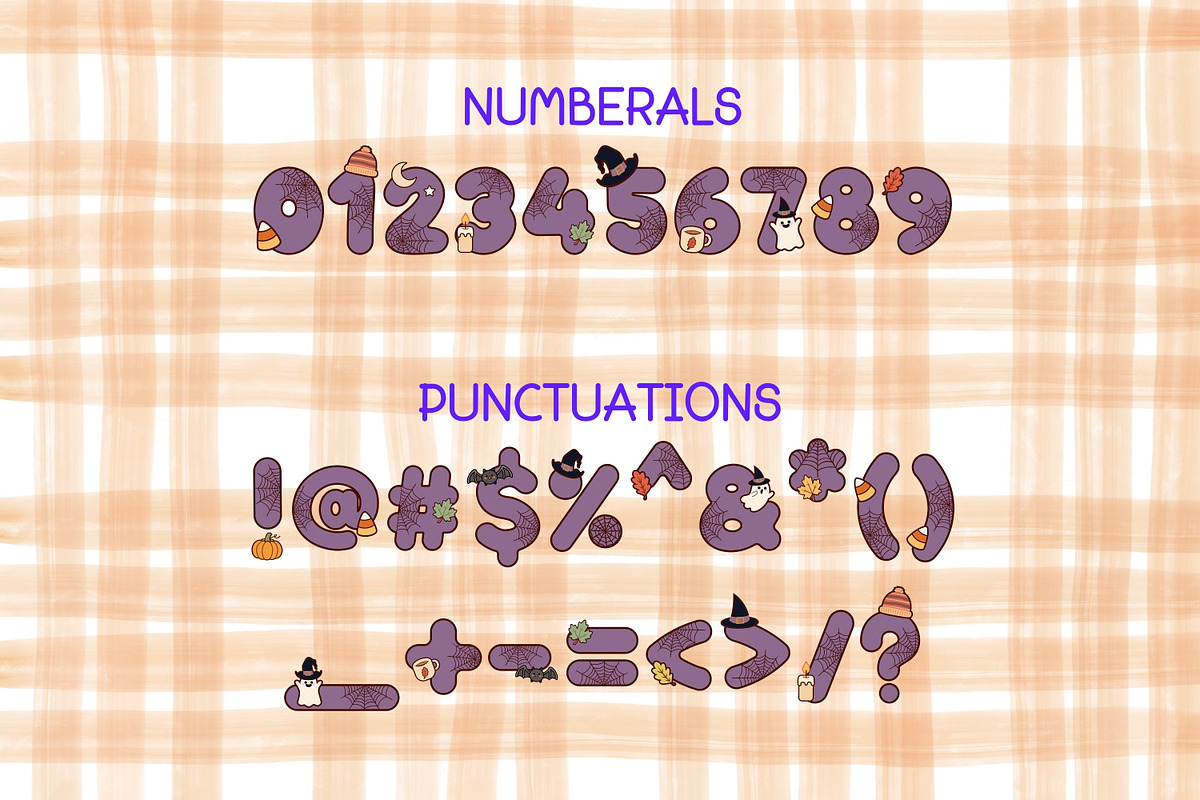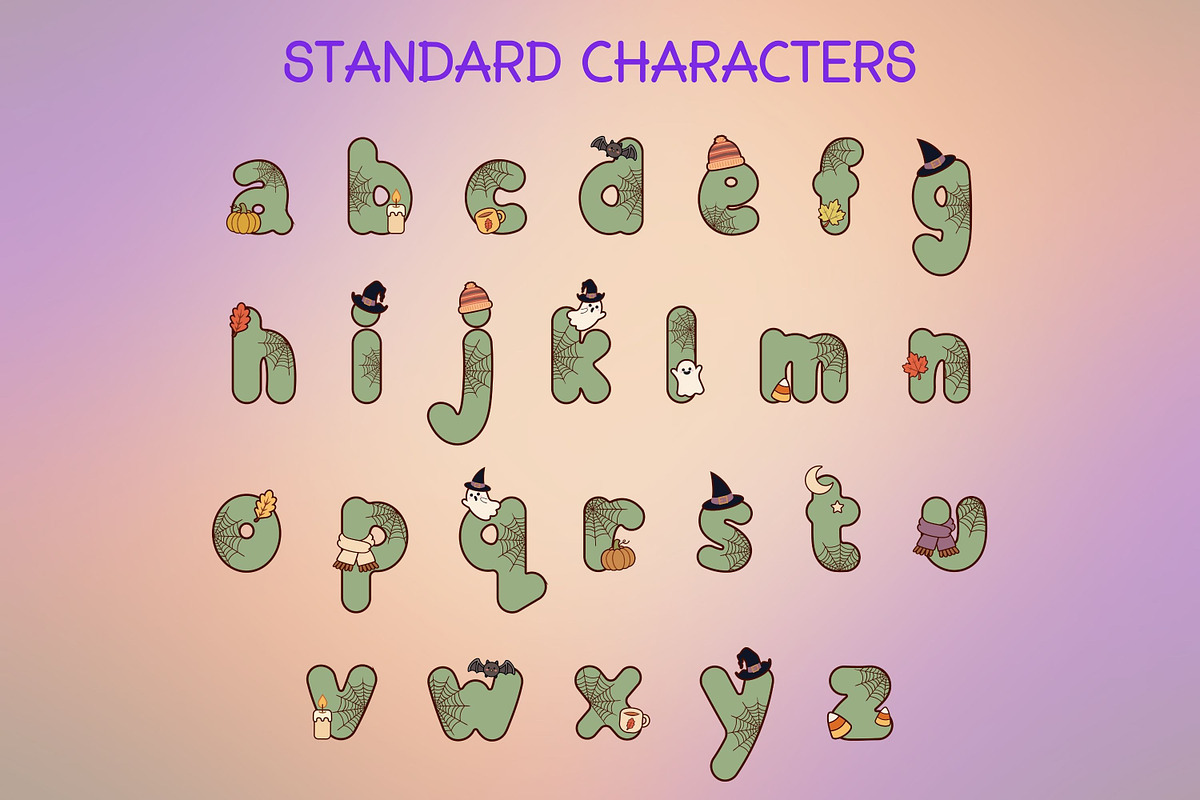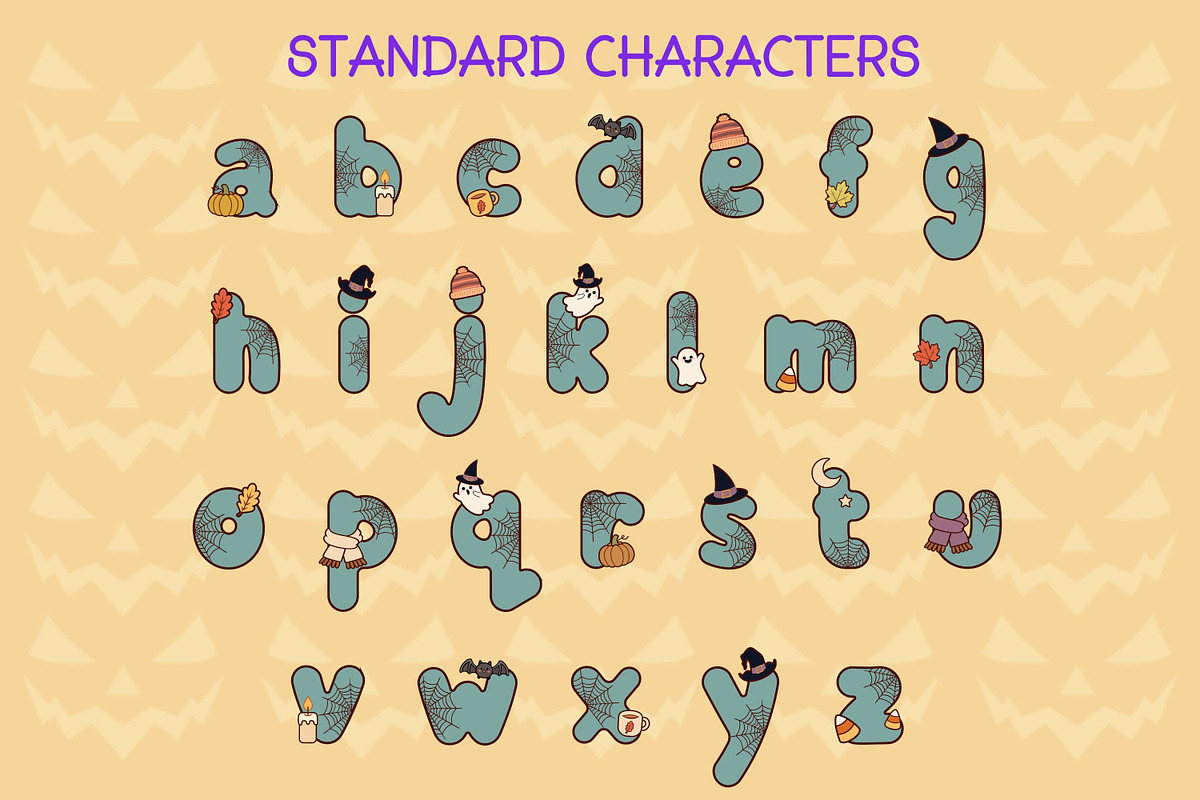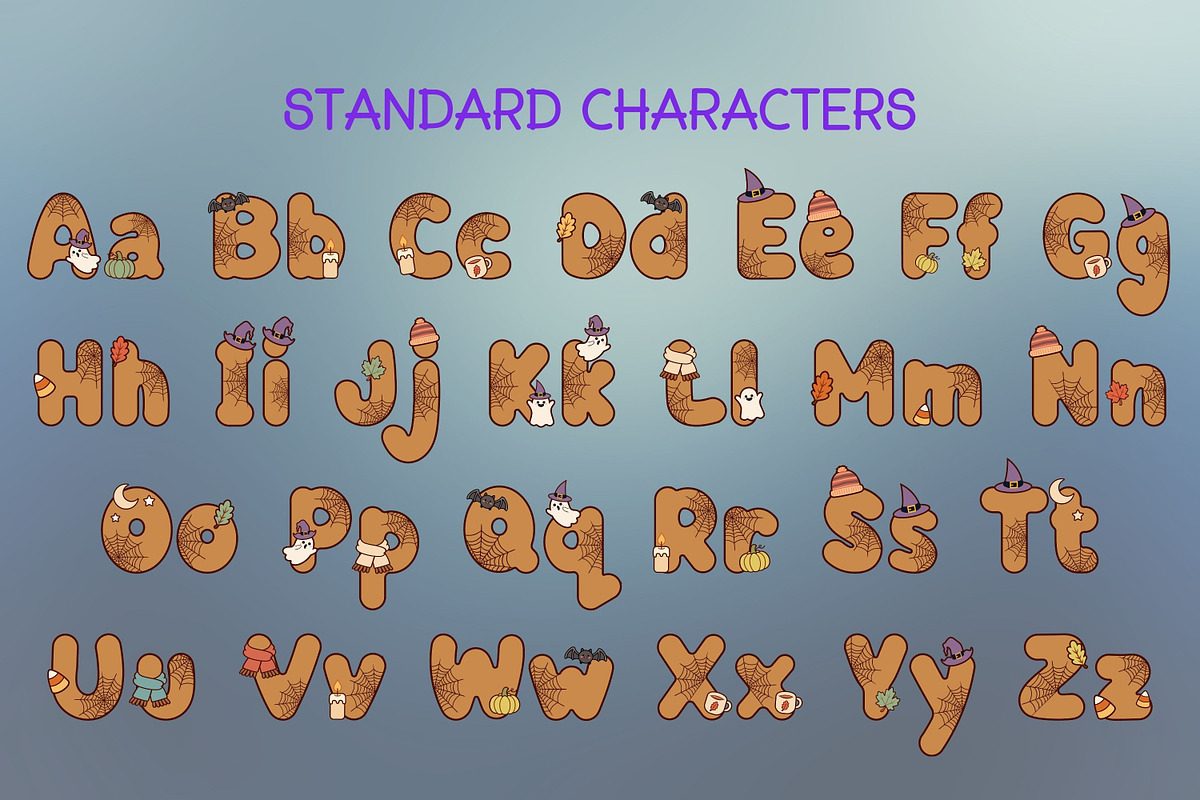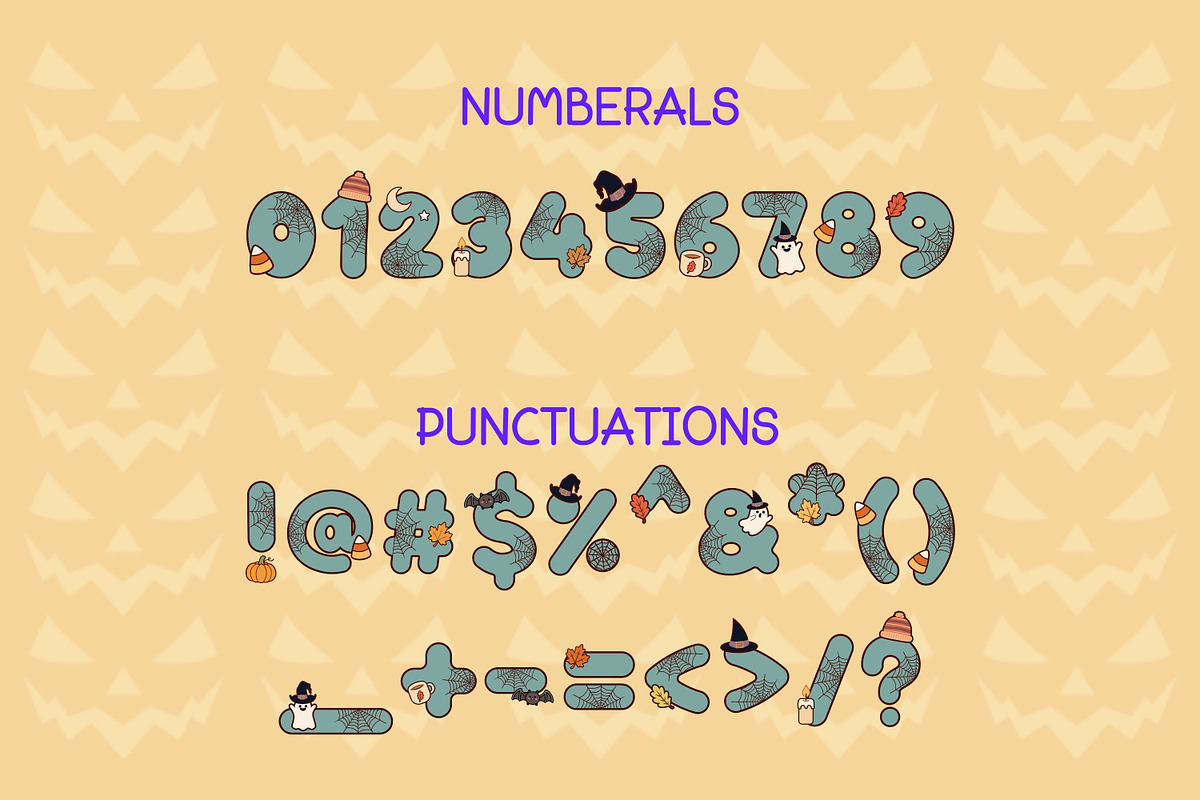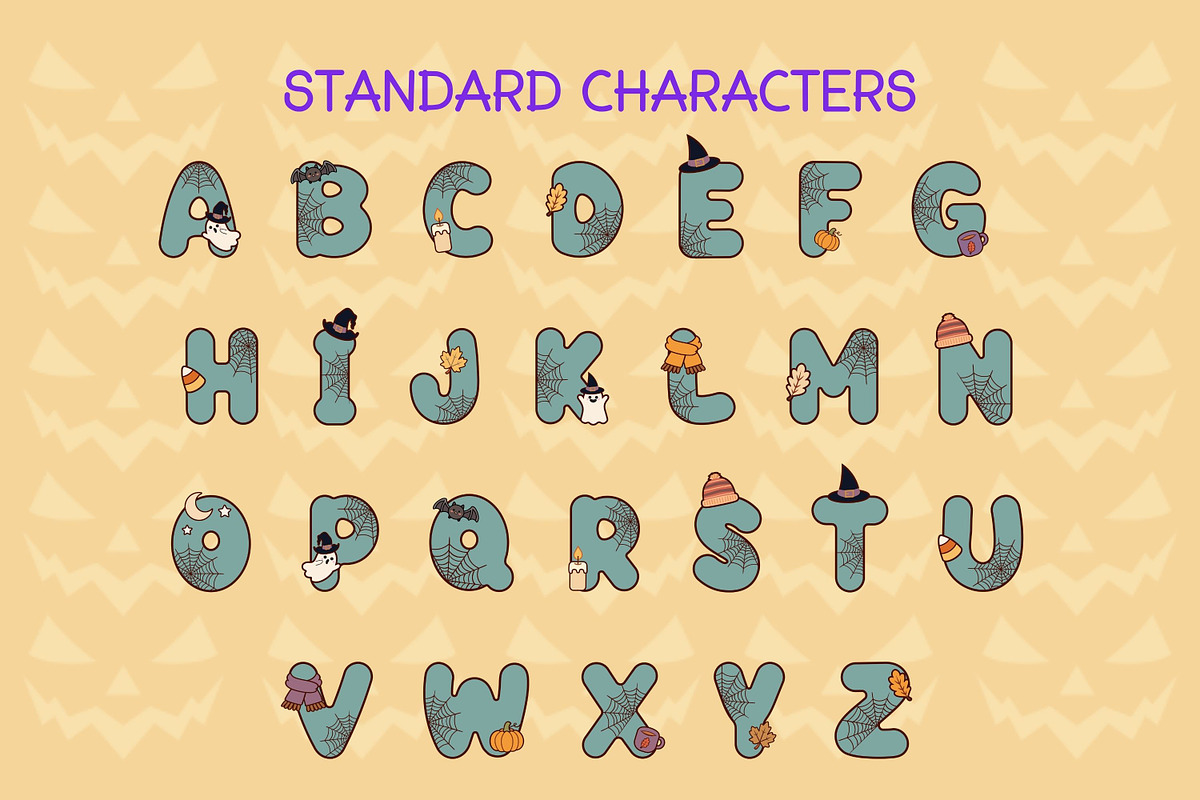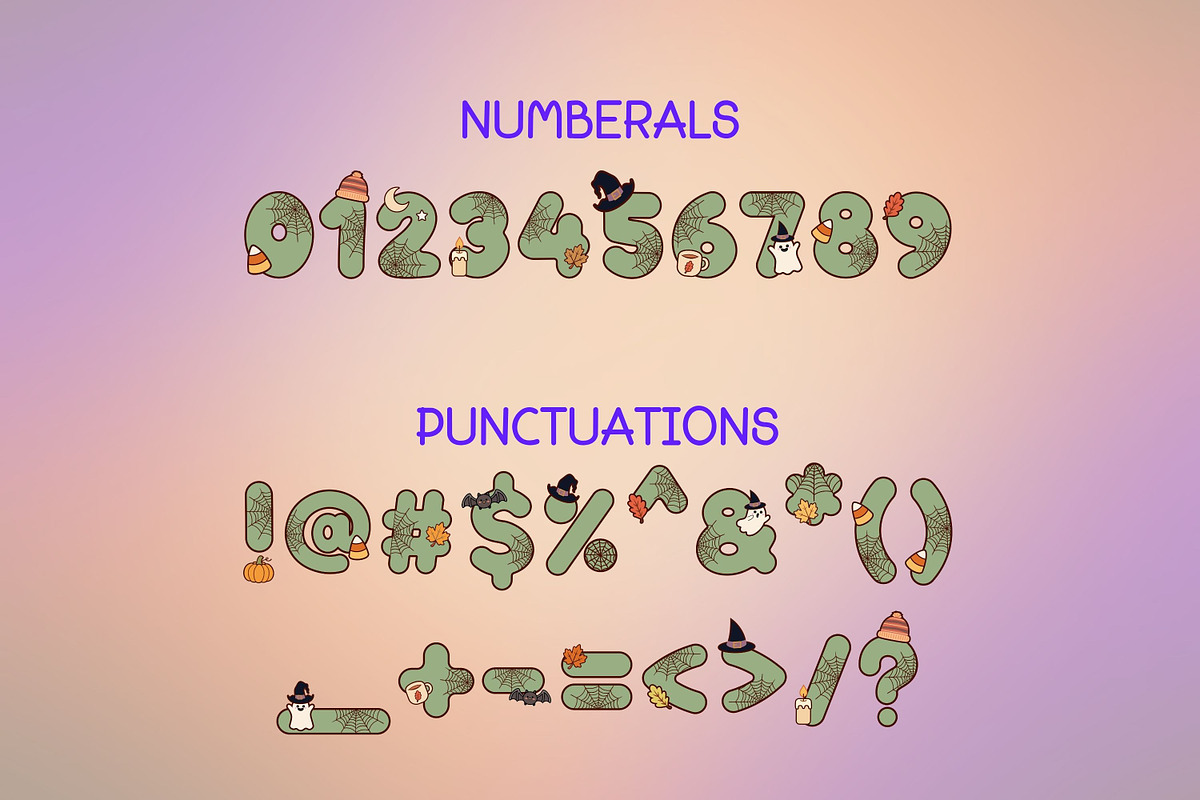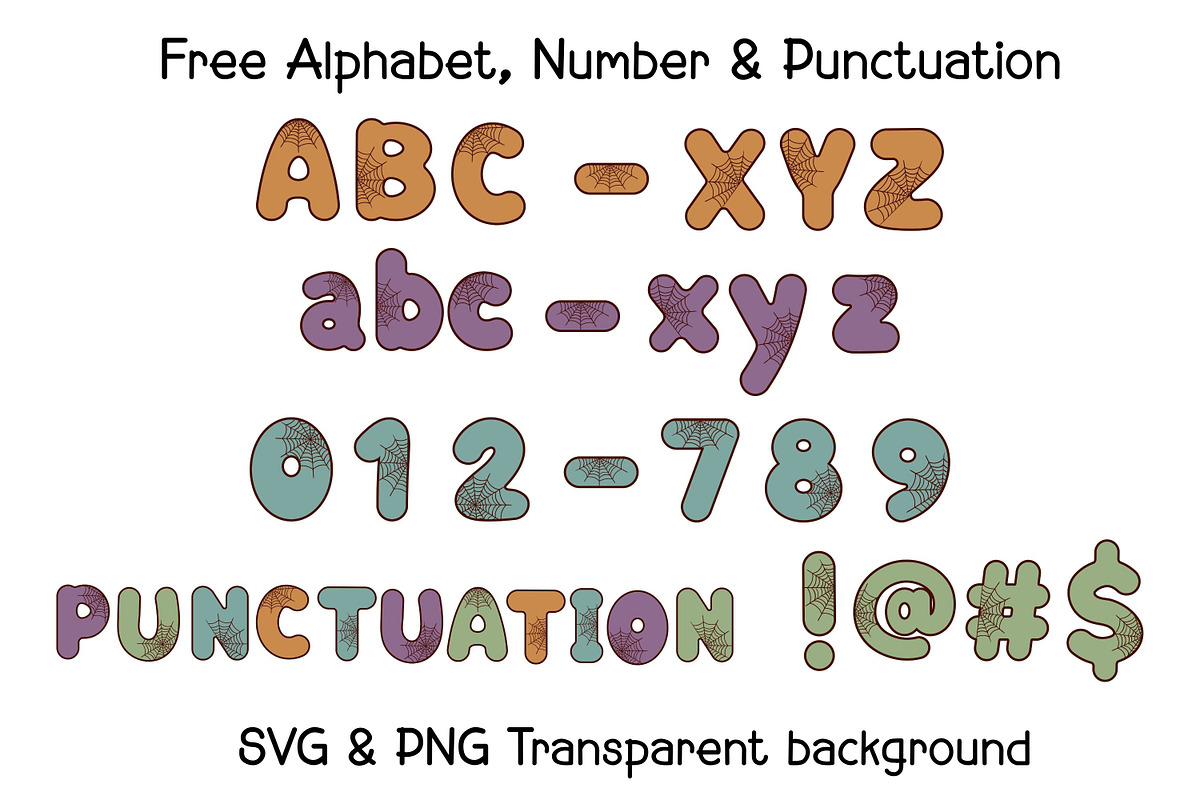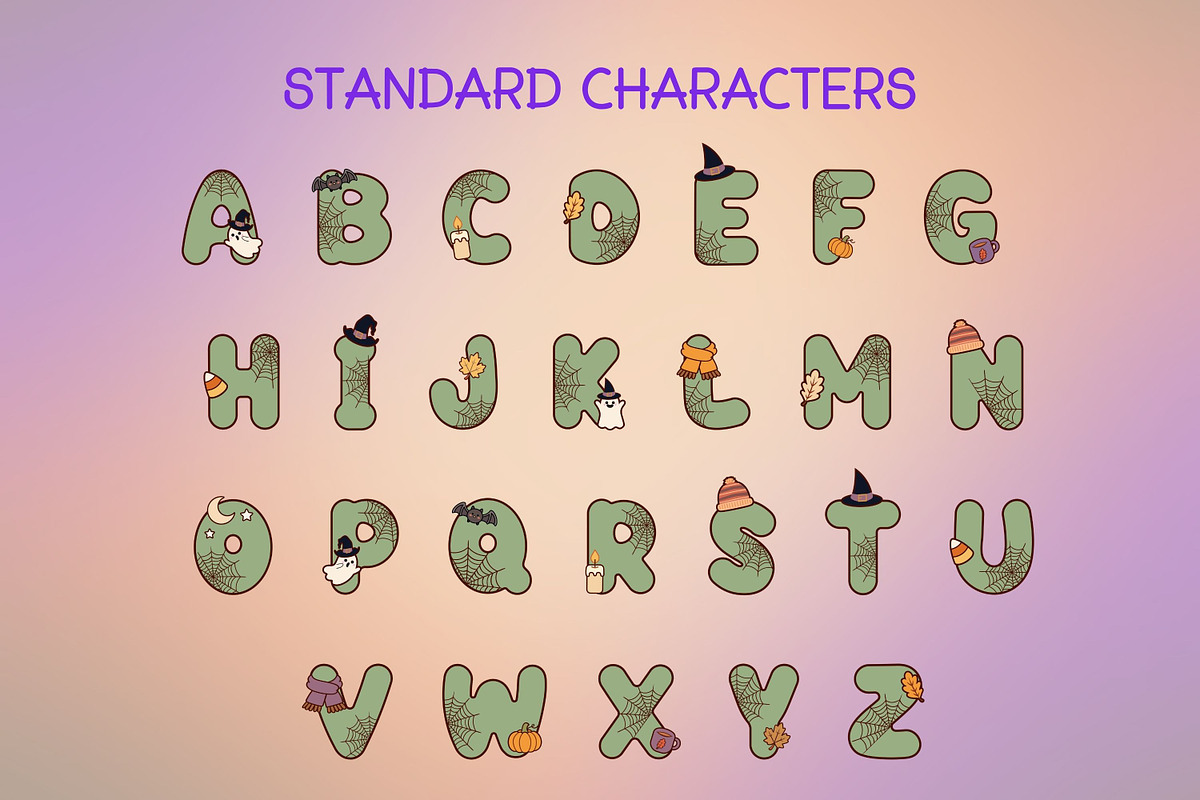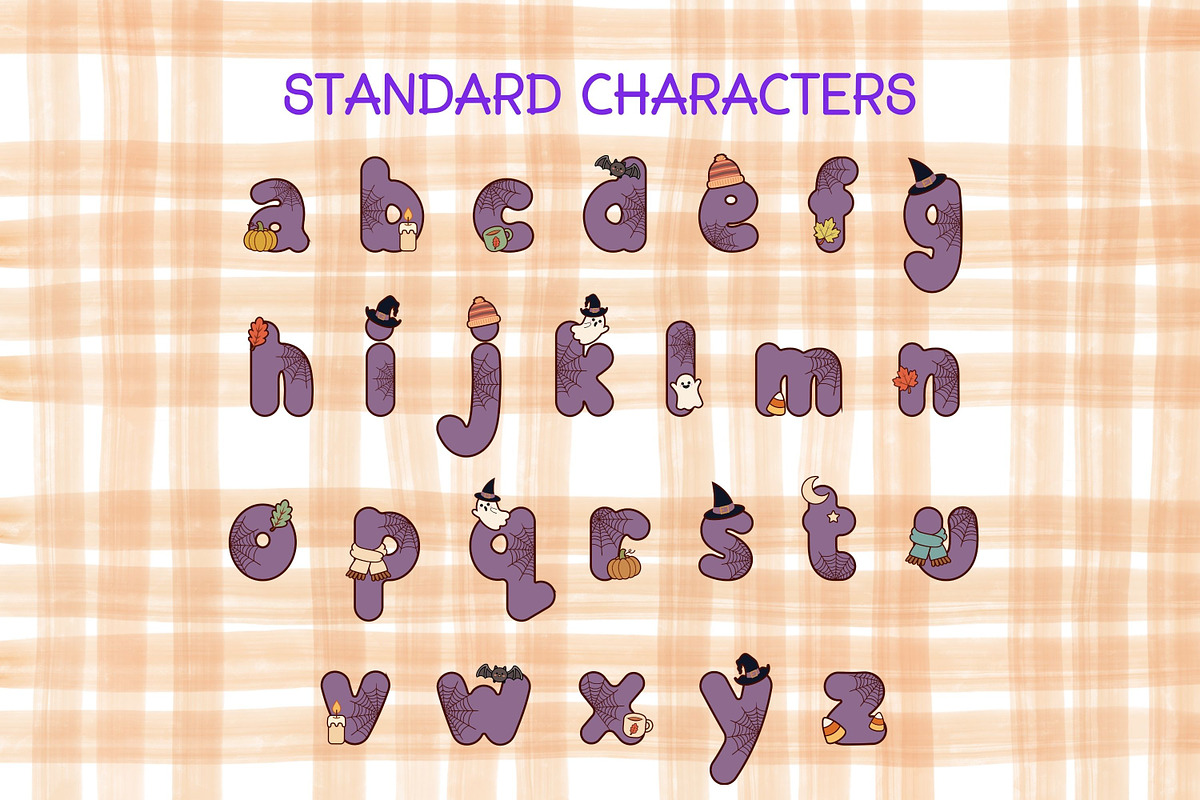
Halloween Font and Alphabet Bundle
Add a cozy, spooky touch to your Halloween projects with this charming Halloween Color Font Bundle! Featuring chunky, rounded lettering decorated with delicate spiderwebs, pumpkins, ghosts, bats, witch hats, autumn leaves, candy corn, and cozy winter-style accessories, this font brings a playful seasonal personality to every design.
The collection includes multiple autumn-inspired color variations, from warm pumpkin orange and soft purple to muted sage green, making it easy to create different Halloween moods while keeping a cohesive handmade look.
Cute and spooky Halloween-inspired color font
Chunky, rounded, playful letterforms
Decorative spiderweb details and seasonal illustrations
Multiple autumn-inspired color variations
Includes uppercase letters, numbers, and punctuation
Works beautifully for both Halloween and fall-themed designs
Whether you're creating a spooky Halloween party design or a cozy autumn project, this font is designed to make your lettering stand out with a fun, whimsical, and handcrafted feel.